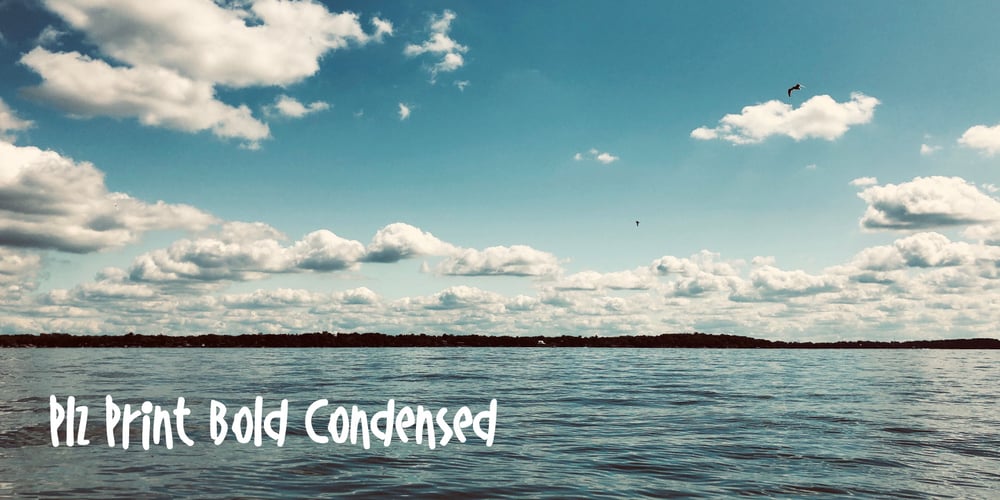
Plz Print Bold Cond
Plz Print Bold Cond font
Plz Print Bold Cond Font Family was designed by Rae Kaiser and published by Outside the Line. Plz Print Bold Cond contains 1 styles and family package options. A bold, energetic, friendly font with a little bounce to it. A good, casual headline font. Works back well with Plz Print or Plz Script.